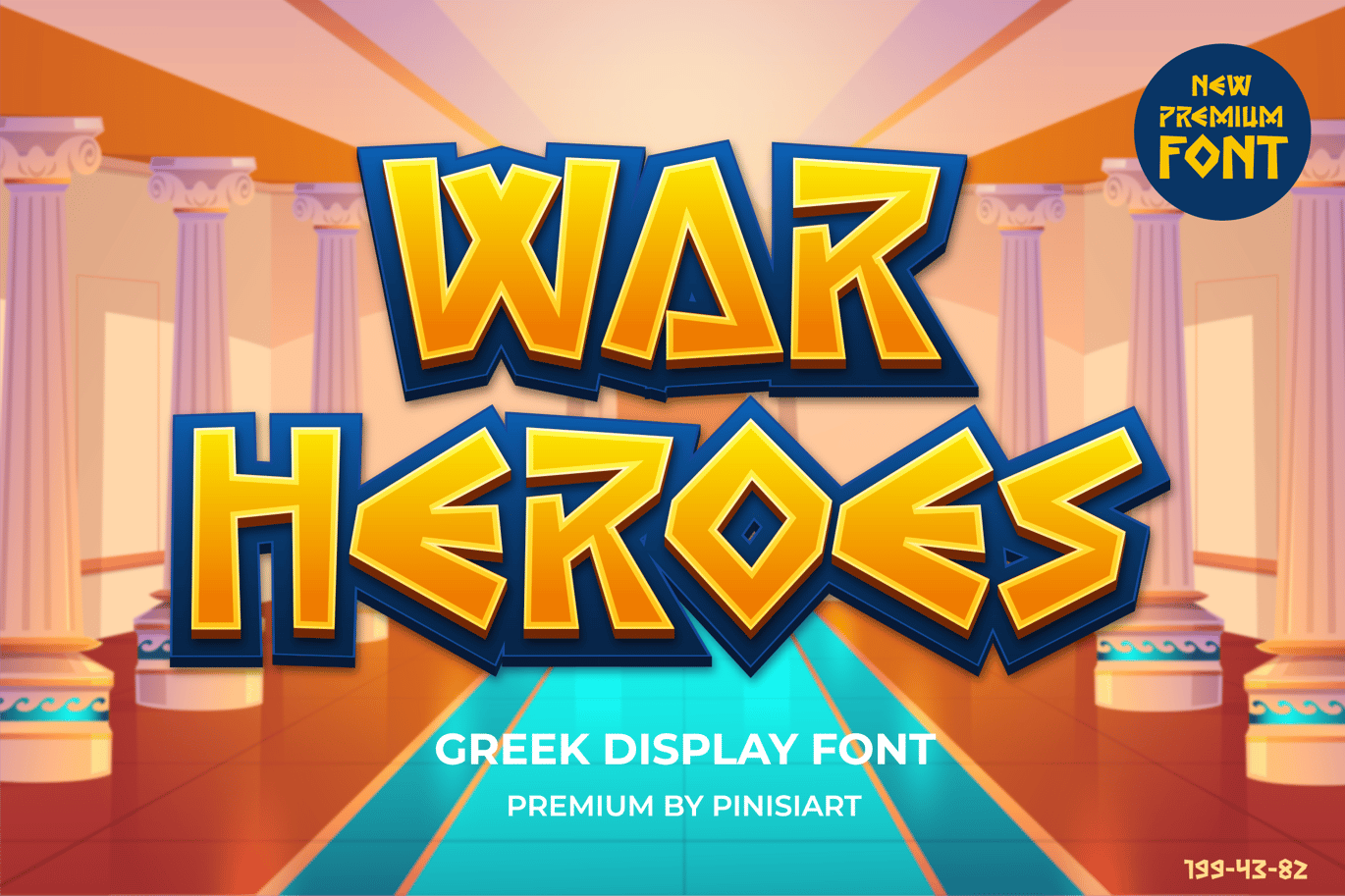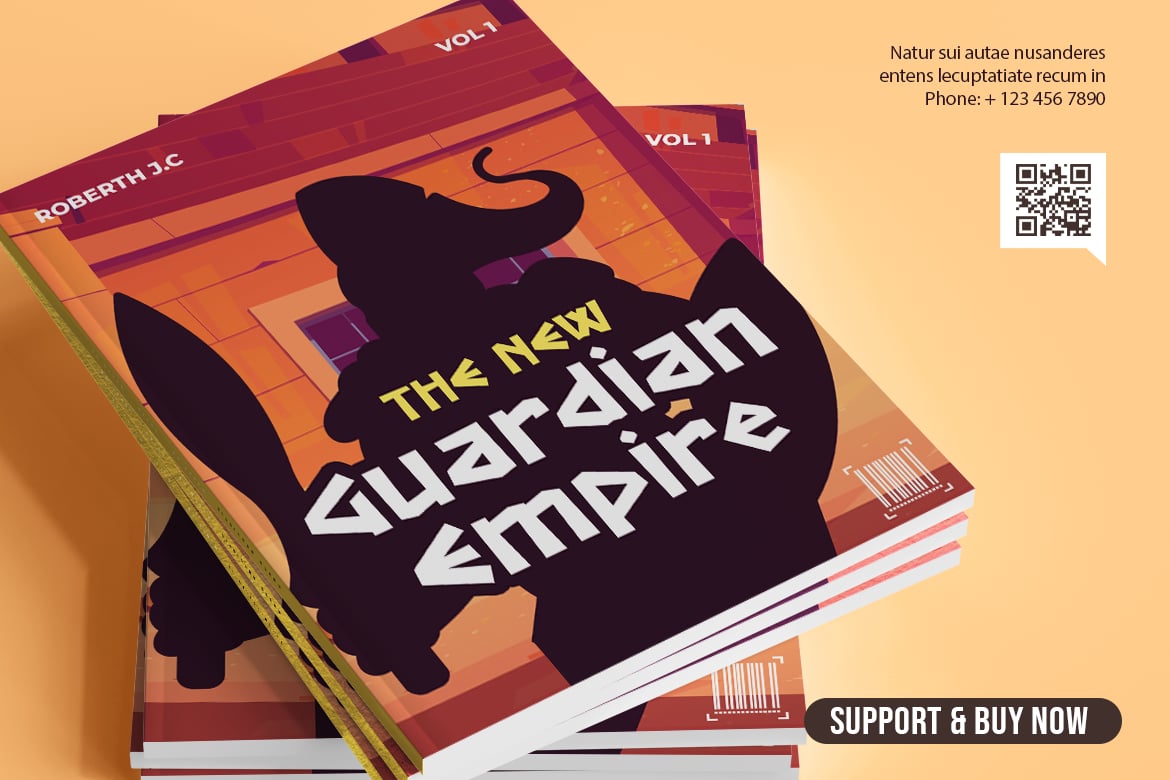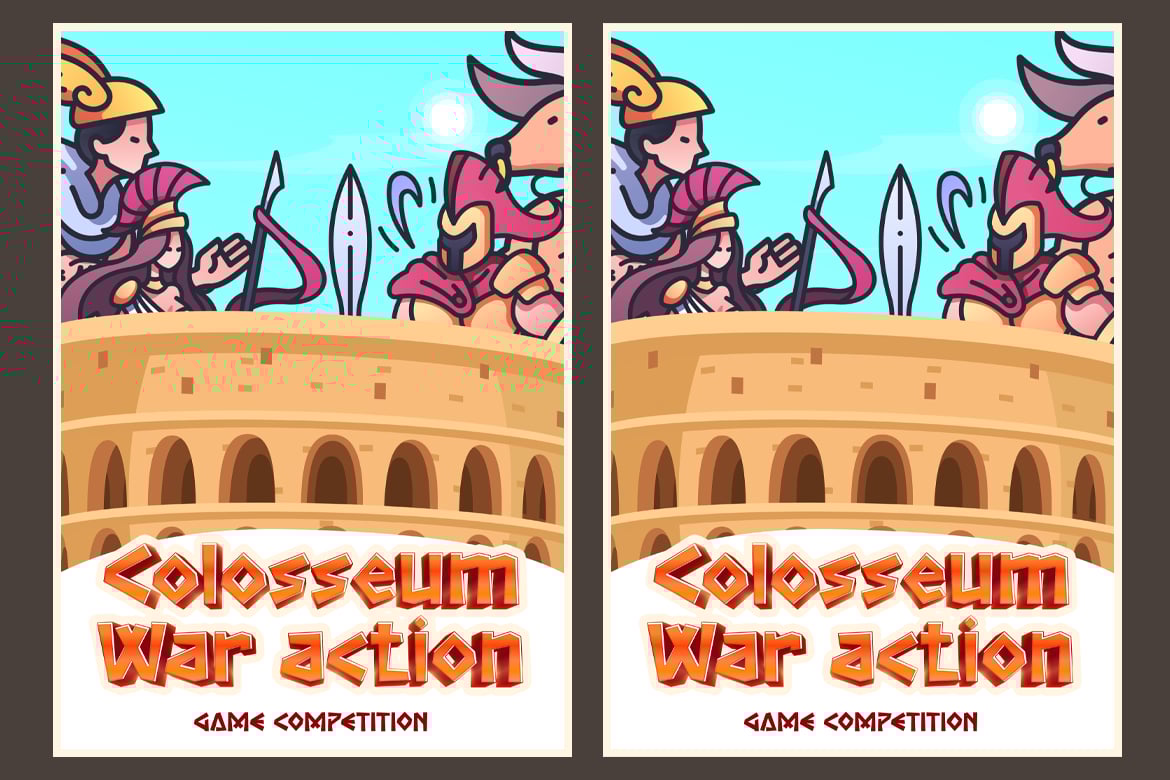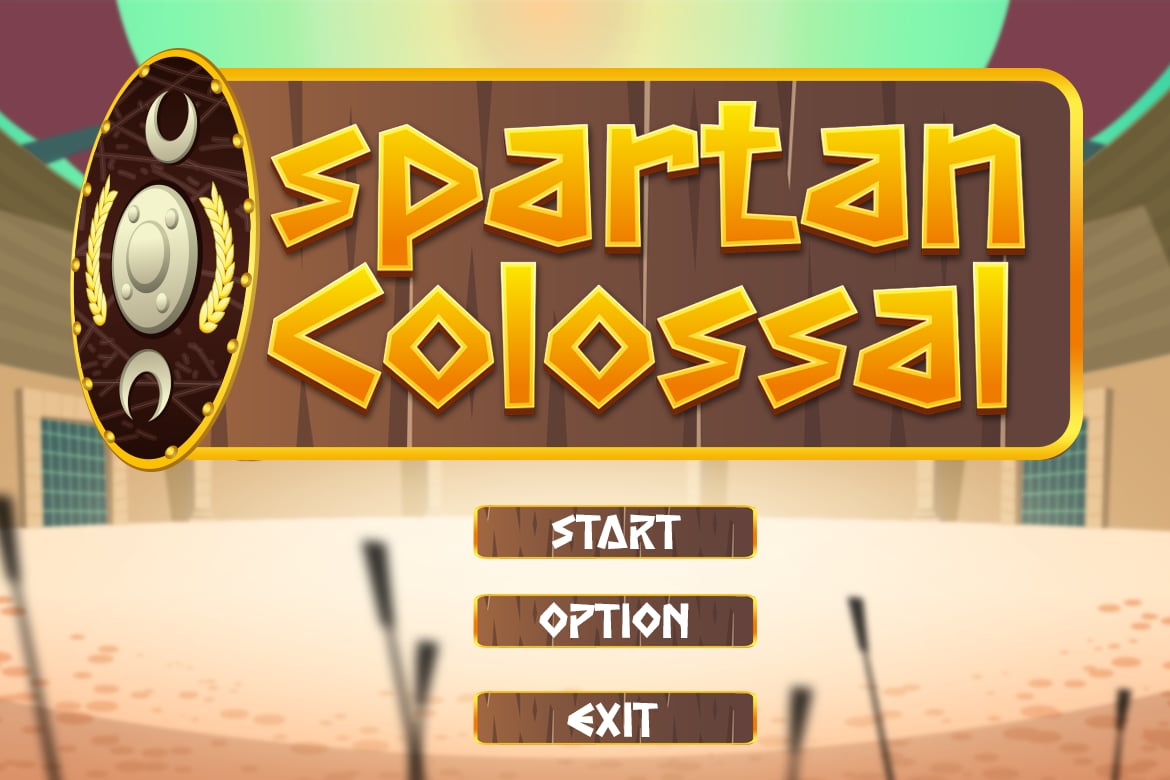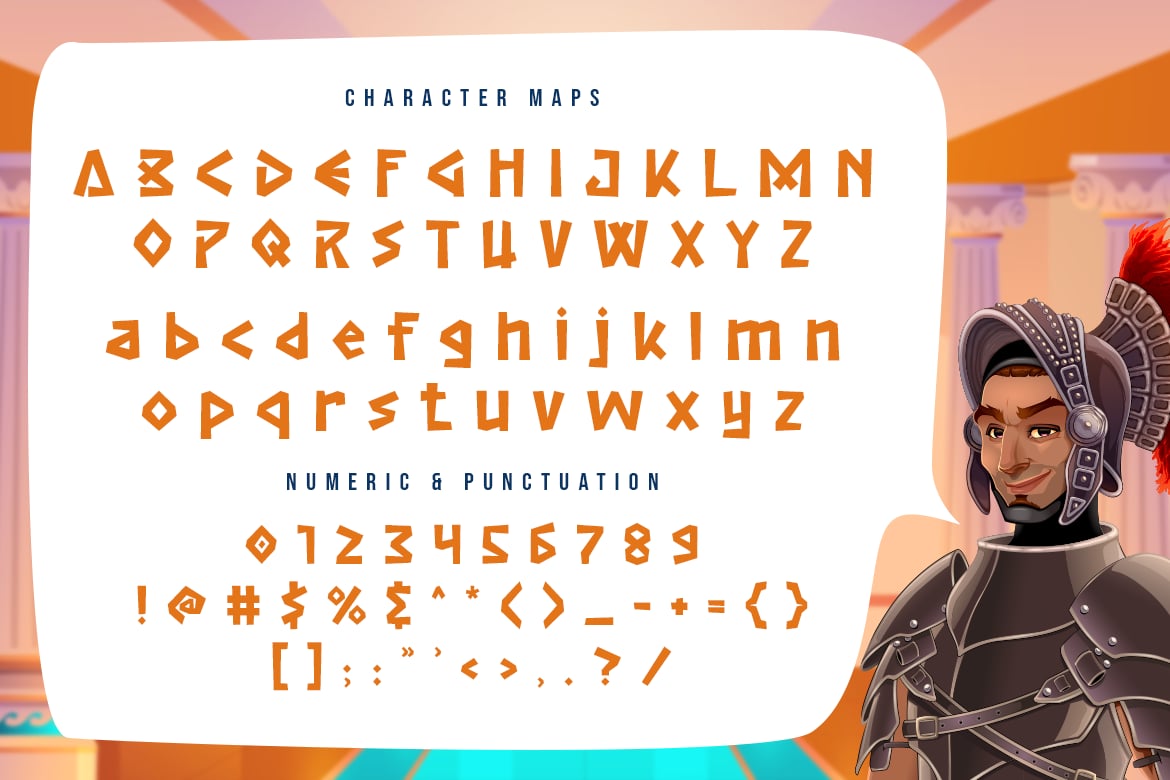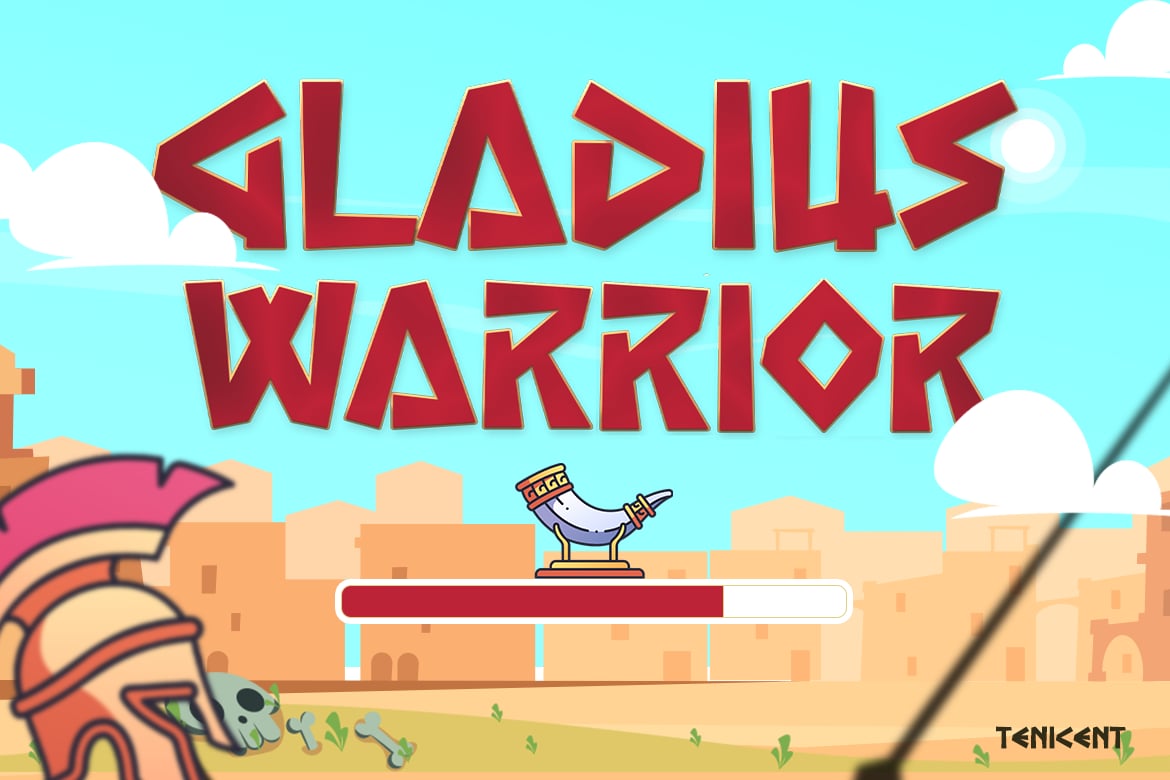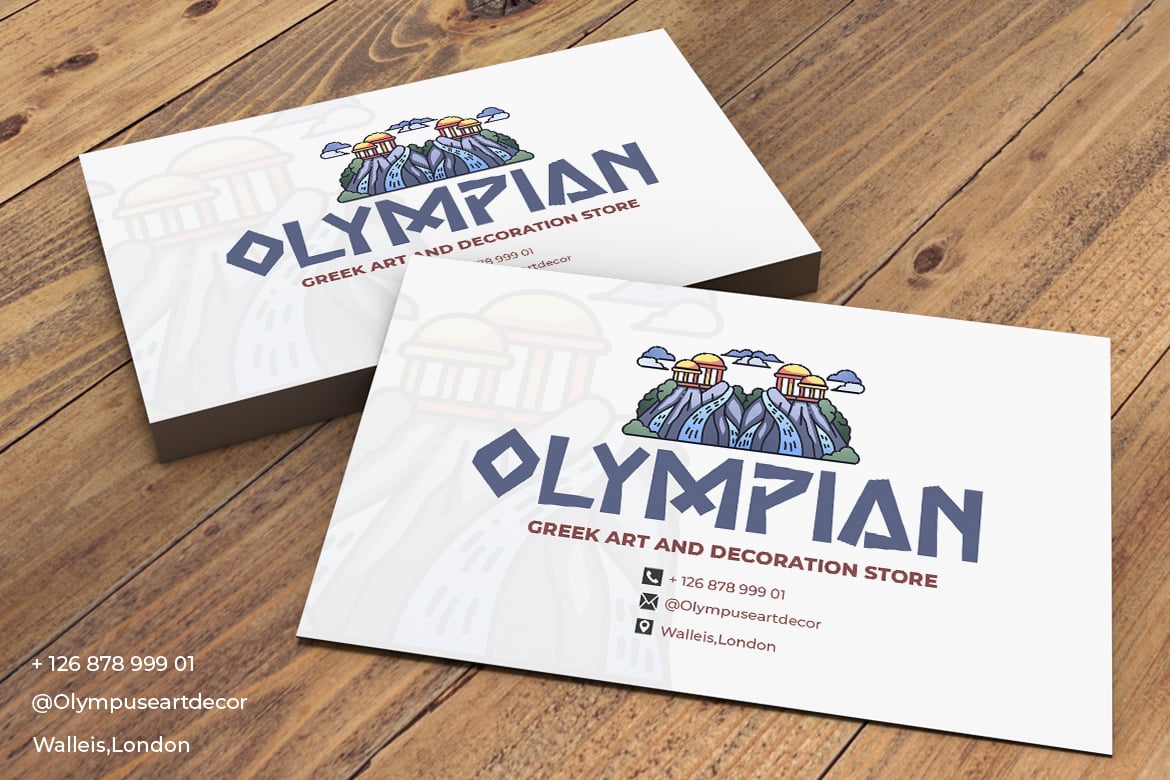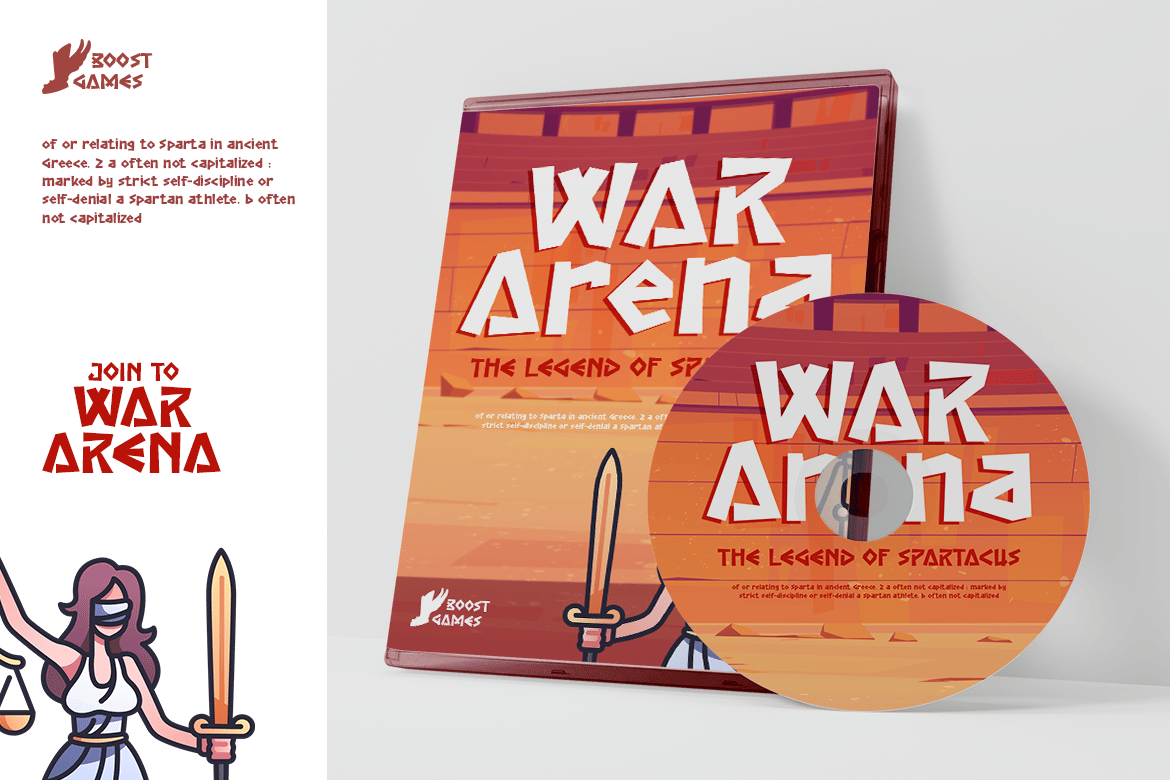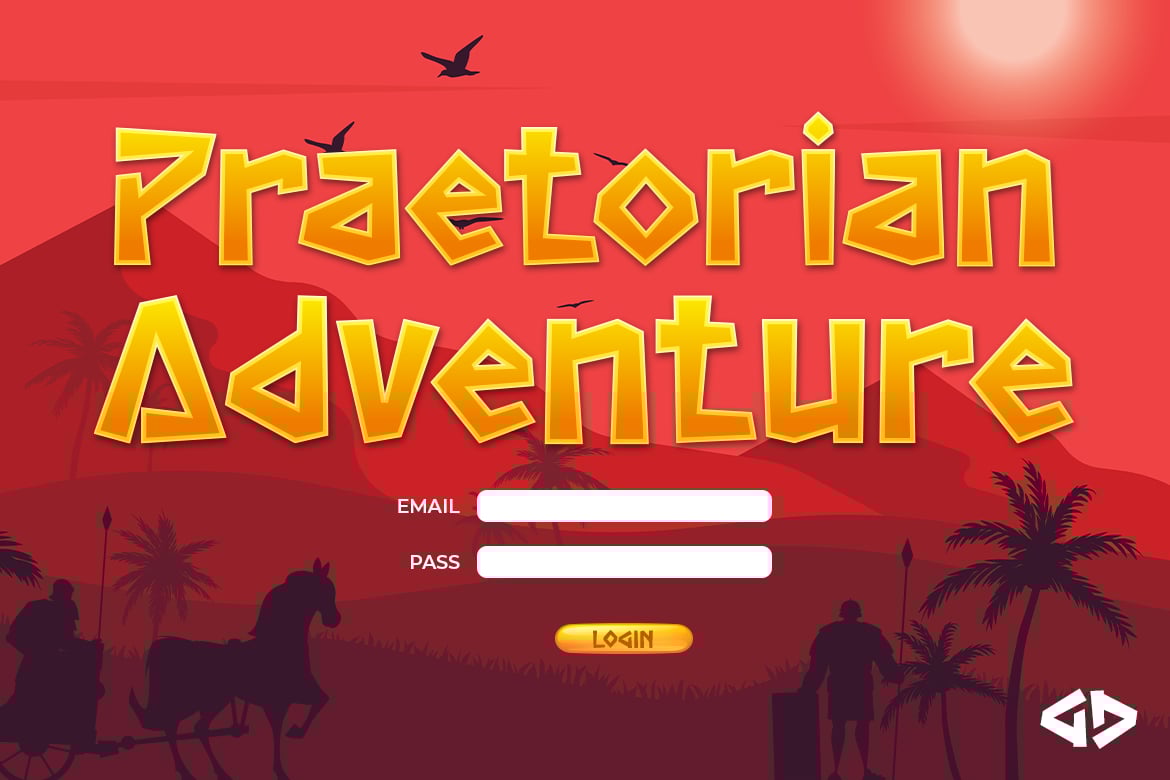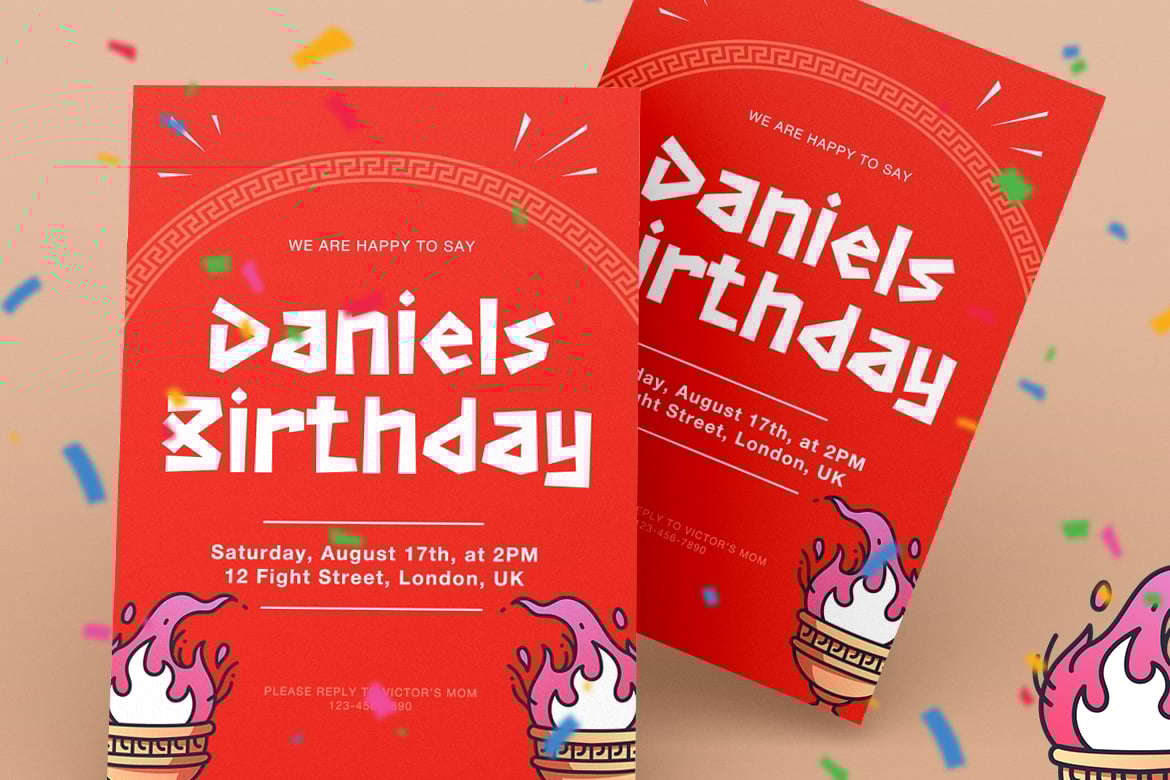
War Heroes – Gaming font
War Heroes – Gaming Font
Taking the ancient greek era, War Heroes will bring the epicness of the god and mythology they had in those time.
The gladiators, the battle of praetorians, the castle siege, all of that… will brought to life with this font.